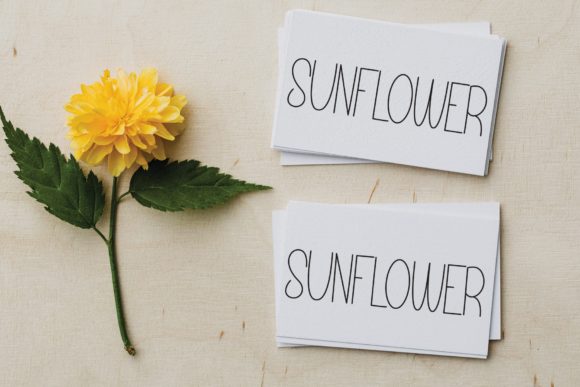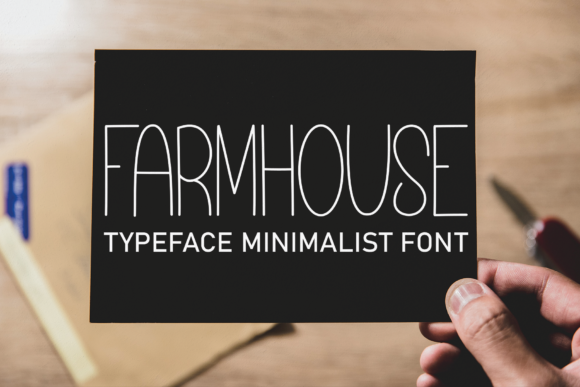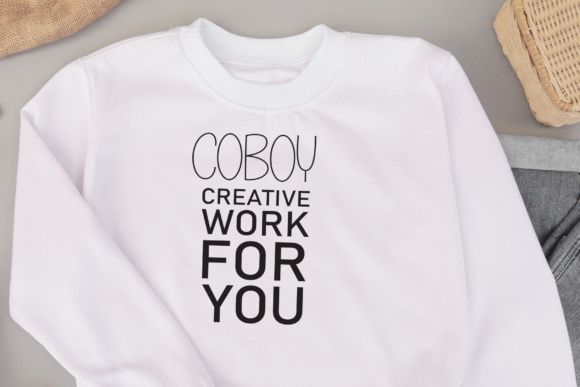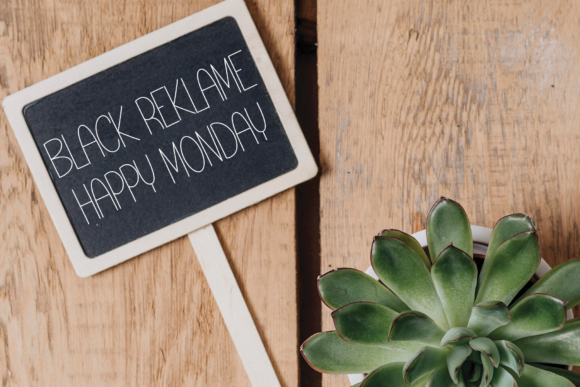
Simple Smart Font
About Simple Smart Font
Simple Smart is a minimalist, tall and casual handwritten font. No matter the topic, this font will be an incredible asset to your fonts’ library, as it has the potential to elevate any creation.